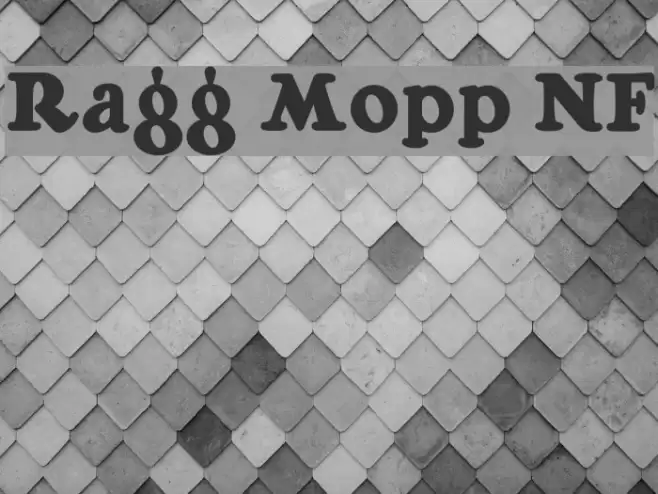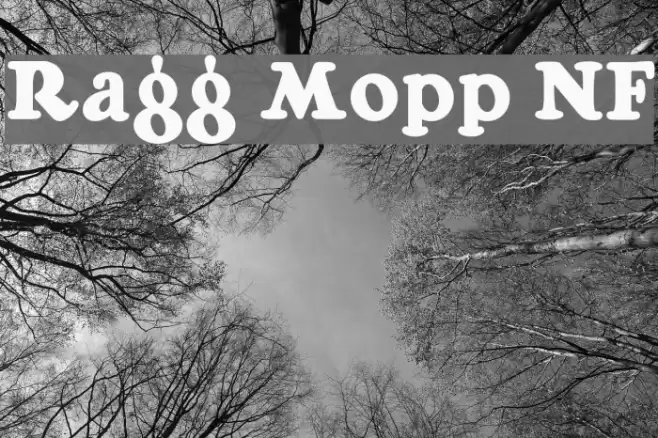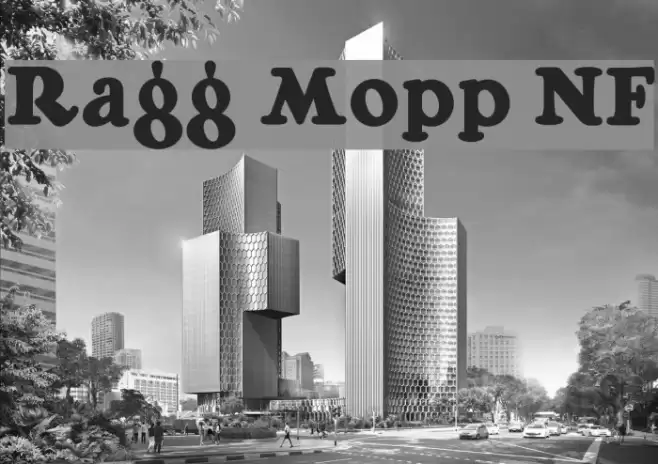
Ragg Mopp NF Font
Ragg Mopp NF Description
This font features a bold and playful design with a distinctive retro flair. The characters are thick and rounded, giving them a friendly and approachable appearance. The serifs are prominent and slightly exaggerated, adding to the vintage charm. The uppercase letters are robust and commanding, while the lowercase letters maintain a consistent weight and style. Numbers and special characters follow the same bold and rounded aesthetic, ensuring uniformity across all glyphs. The overall style is reminiscent of mid-20th-century design, making it ideal for projects that require a touch of nostalgia.
A bold, retro-inspired serif font with rounded characters and a playful vibe from Retro fonts.
- Proposed Projects: Ideal for vintage-themed posters, retro branding, playful packaging, and eye-catching headlines.
- Overall Style: Vintage